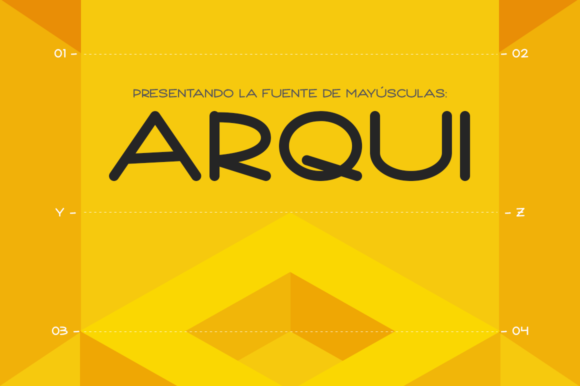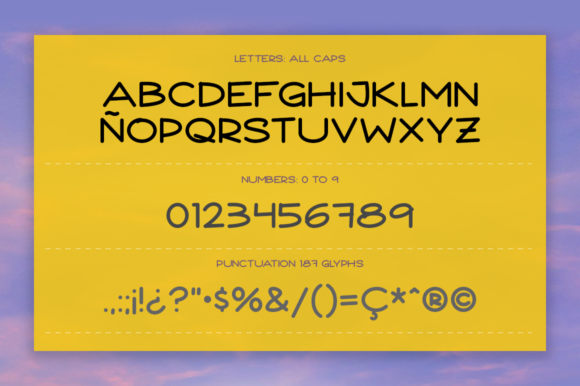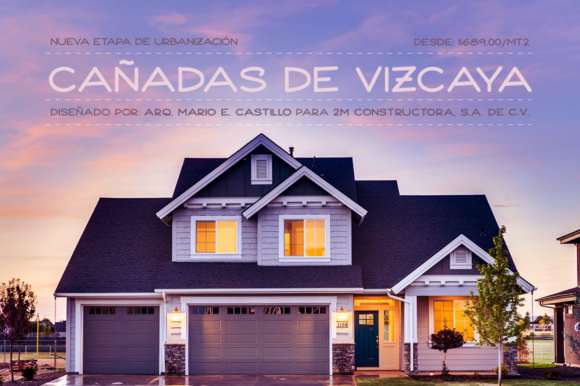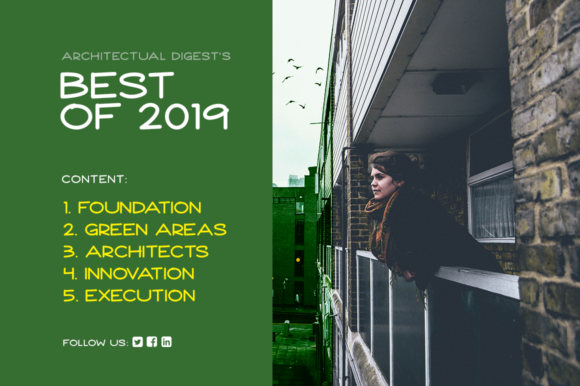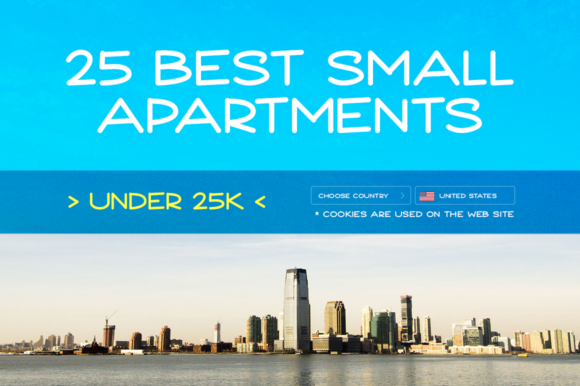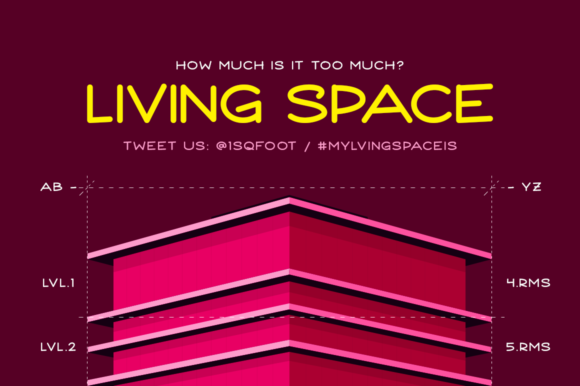
Arqui Font
About Arqui Font
The Arqui is a clean and simple sans serif font. It’s all caps and was inspired by an architect handwriting style. It perfect for short sentences and titles.